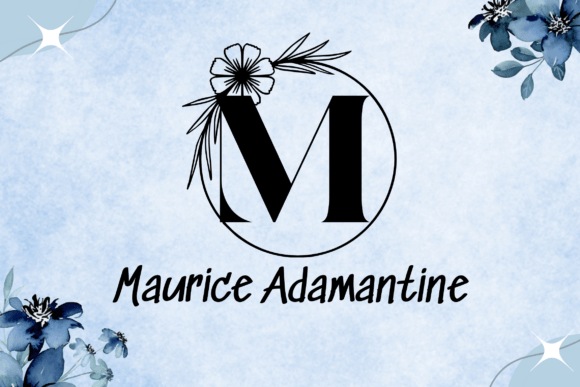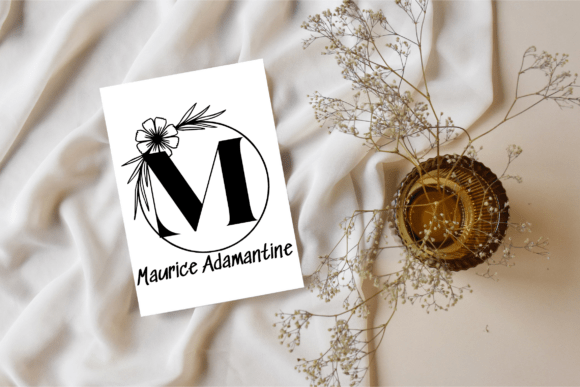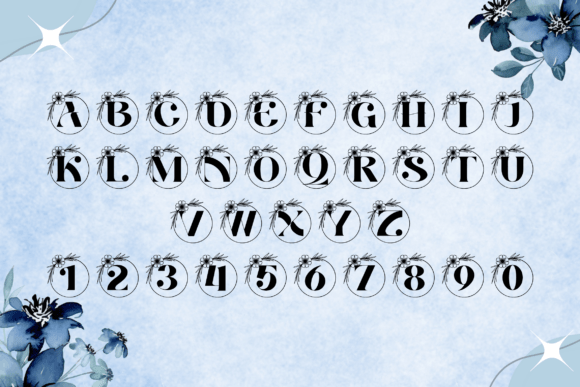
Unlocking Elegance with the Arabesque Bloom Monogram Font
As a designer, there’s nothing quite like the thrill of discovering a new font that sparks inspiration and creativity. For me, it was a late-night Pinterest scroll that led me to the enchanting world of the Arabesque Bloom Monogram Font. Its intricate, hand-drawn design seemed to transport me to a whimsical garden, where flowers bloomed and classical elegance reigned supreme.
At its core, the Arabesque Bloom Monogram Font is a masterfully crafted monogram font that combines the best of both worlds – delicate arabesque patterns and lush floral motifs. Perfect for high-end monograms, wedding stationery, boutique branding, and heritage-inspired designs, this font is a treasure trove for designers seeking to add a touch of luxury and romance to their personalized creations.
Whether you’re a seasoned designer or a budding creative, the Arabesque Bloom Monogram Font is an invaluable addition to your toolkit. Its versatility, paired with its unique blend of classic and whimsical elements, makes it an ideal choice for a wide range of projects, from elegant wedding invitations to sophisticated branding materials.
Arabesque Bloom Monogram Font Features
- Unique, hand-drawn design with intricate floral patterns and Arabic-inspired motifs
- Character set: includes uppercase and lowercase letters, numerals, punctuation, and special characters
- Unique characteristics: swashes, ligatures, and alternate characters for added flair and customization options
Arabesque Bloom Monogram Font Review
Overall, I think the Arabesque Bloom Monogram Font is a beautiful and elegant choice for any project. ✨ Its intricate, hand-drawn design adds a touch of sophistication and whimsy that’s hard to resist.
Here are some of the things I love about this font:
- ✨ The unique, organic shape of the monograms makes each one feel special and personalized.
- ✨ The subtle curves and flourishes add a touch of romance and femininity, making it perfect for wedding invitations or bridal shower decorations.
- ✨ The font is highly customizable, with a range of options for color, size, and layout.
- ⚠️ The font may be difficult to read at very small sizes, so be sure to test it out at different scales before finalizing your design.
- ⚠️ The intricate design may not be suitable for projects that require a lot of text, as it can be overwhelming and difficult to read.
Overall, I think the Arabesque Bloom Monogram Font is a beautiful and unique choice for any project. While it may have some limitations, its elegant design and high customization options make it a great choice for anyone looking to add a touch of sophistication to their design.
The Arabesque Bloom Monogram Font is ideal for:
- Branding and logos for florists and gardeners.
- Decorative text for scrapbooking and card making.
Alternatives to Arabesque Bloom Monogram Font
Great Vibes is a beautiful, elegant script font perfect for adding a touch of sophistication to designs. It features flowing lines and organic curves, making it ideal for invitations, wedding stationery, and high-end branding.
Comparison to Arabesque Bloom Monogram Font: While both fonts have a similar elegant feel, Great Vibes has a more modern and relaxed vibe. It’s a great choice for designers who want to create a unique and stylish look without the ornate details of Arabesque Bloom Monogram Font.
Carolyna Pro is a luxurious, high-end script font that exudes glamour and sophistication. It features intricate details and ornate flourishes, making it perfect for luxury branding, high-end packaging, and exclusive events.
Are there any specific requirements for using the Arabesque Bloom Monogram Font at large sizes?
For optimal results, we recommend using the font at sizes between 12-72 points. At larger sizes, the font may become distorted or lose its intended aesthetic. However, this can be mitigated by using the font’s built-in OpenType features, such as ligatures and swashes, to create more visually appealing and balanced compositions.